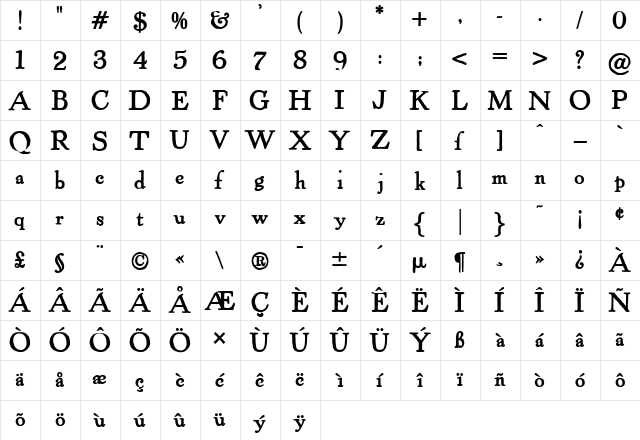
Powell Antique Bold
Design Context for Powell Antique Typeface
Powell Antique wears its vintage influences proudly, with letterforms that recall mid-century signage, classic packaging, and nostalgia-driven design. The heavy weight commands attention and anchors typographic hierarchies.
Font Pairing: Combine Powell Antique with a simple slab or neutral sans — period-accurate companions reinforce the vintage feel without competing for attention.
Pro Tip: Lean into Powell Antique's period character by pairing it with aged paper textures, muted colour palettes, and vintage illustration styles.